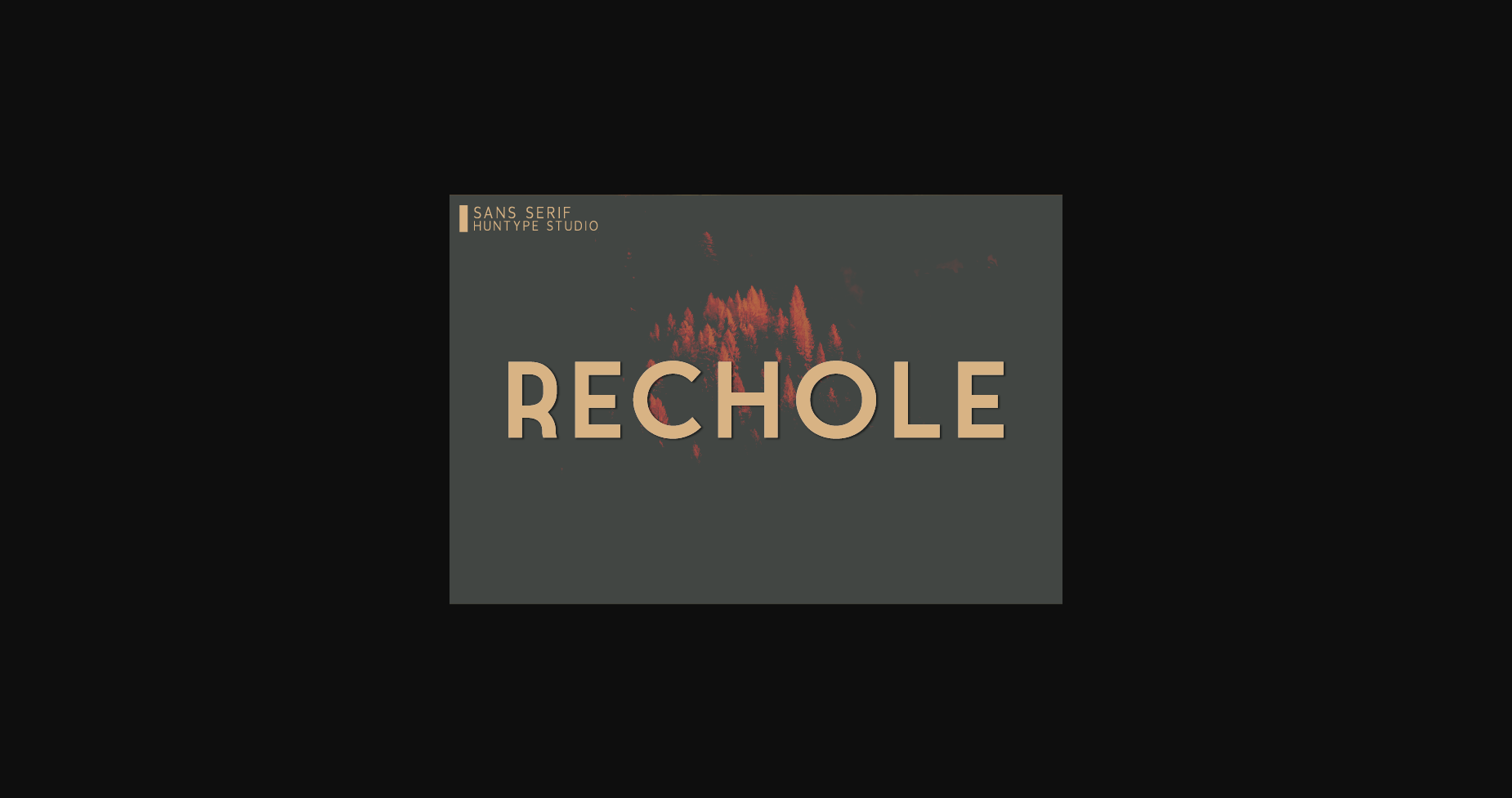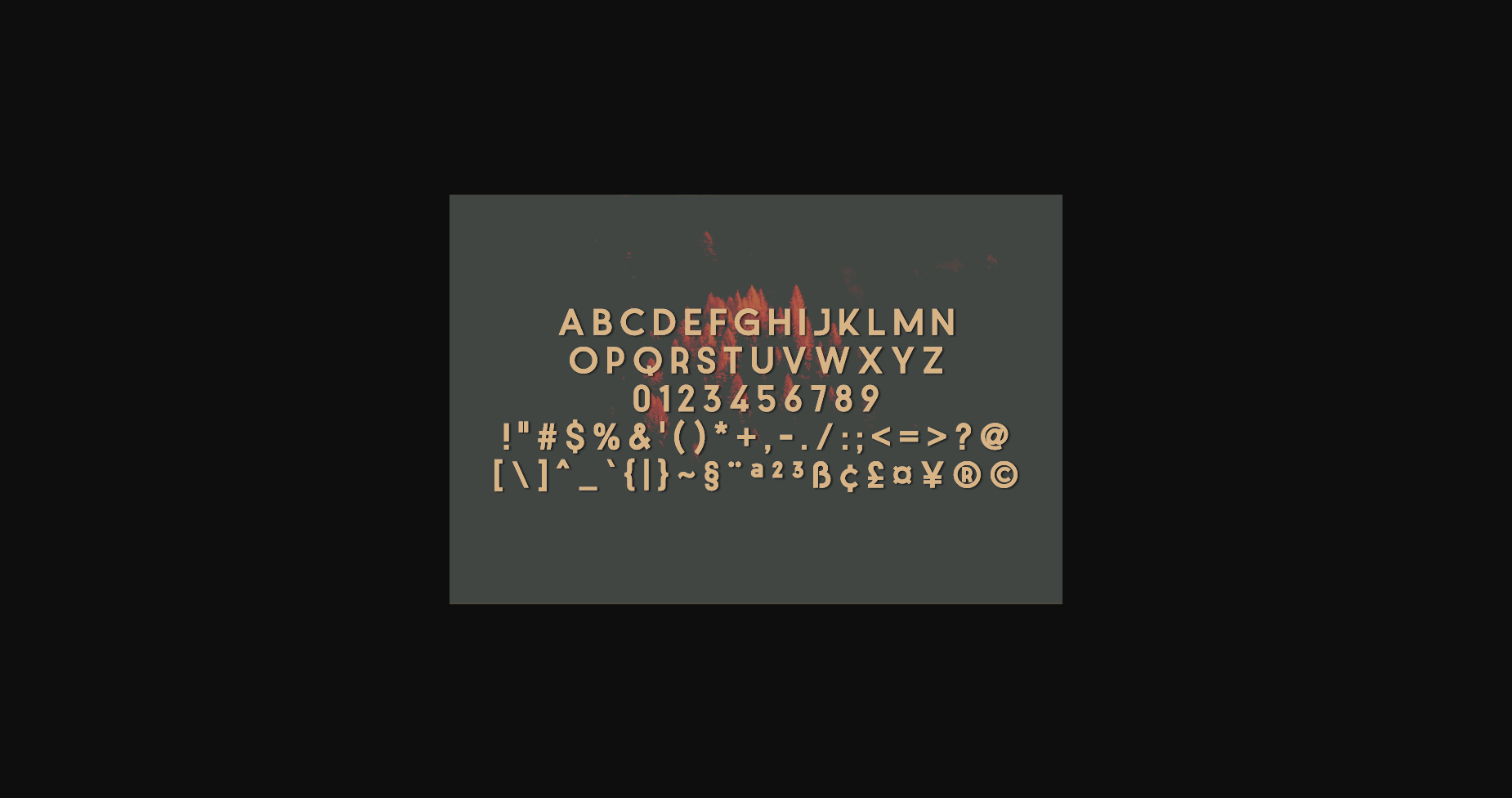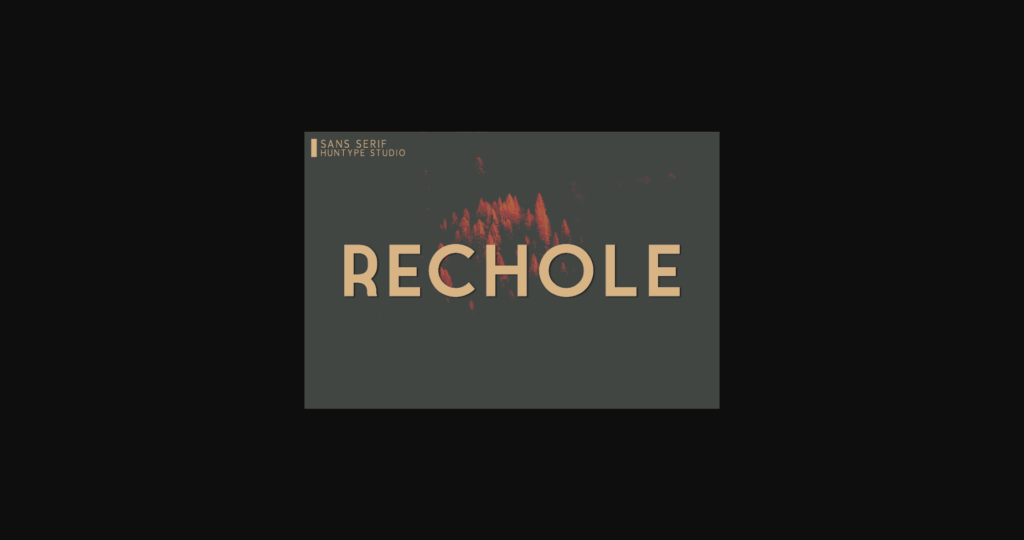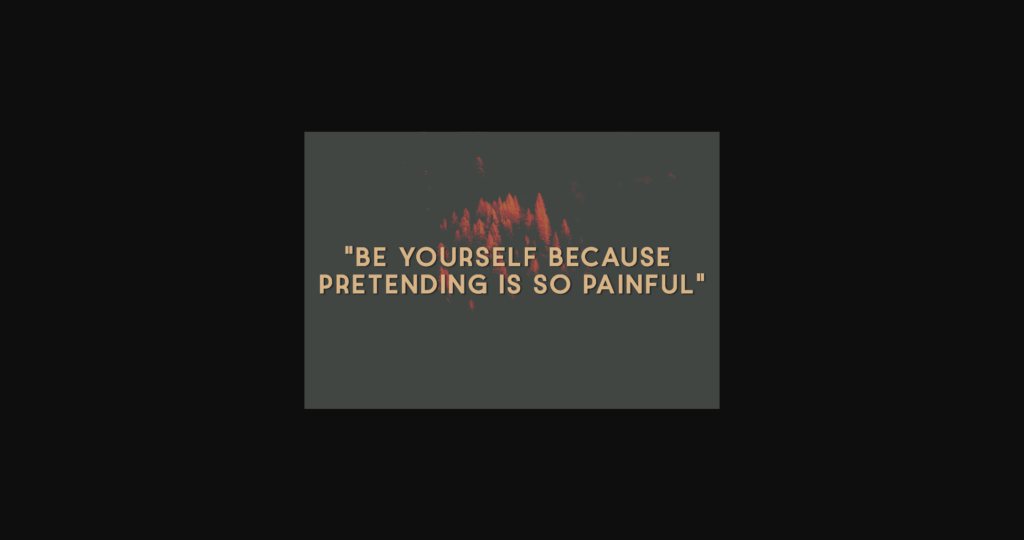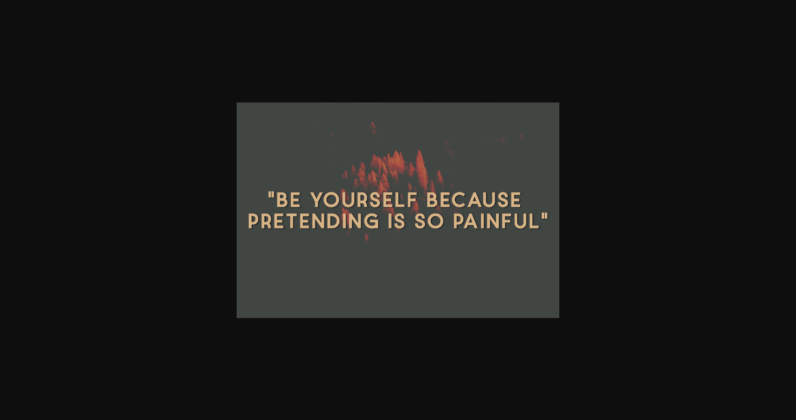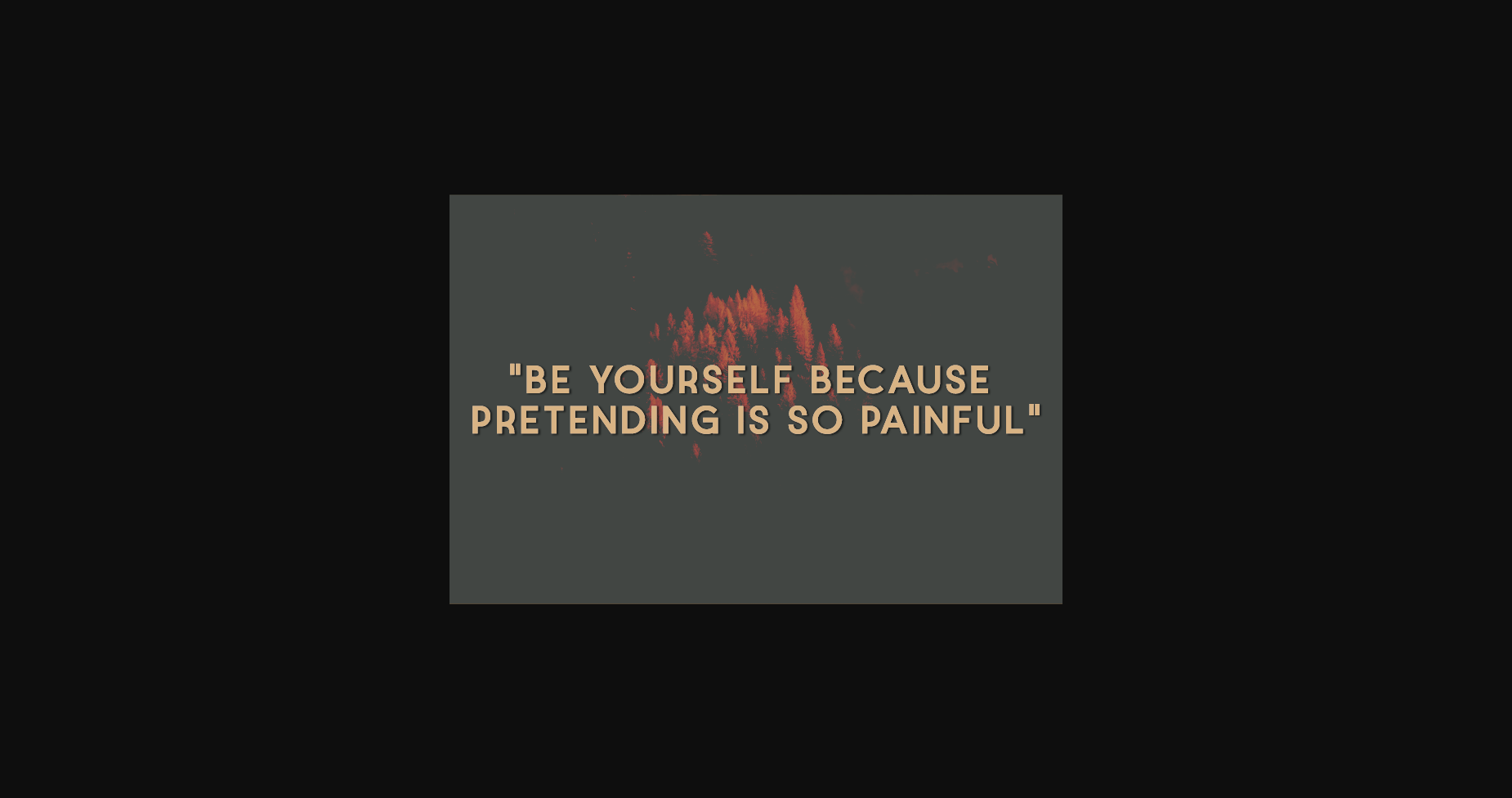
Rechole Font
About Rechole Font
Rechole is an amazing all-caps sans serif font. Versatile, smooth, and clean, it will look great in any creative context. Rechole works beautifully for logos, branding, and web headings.